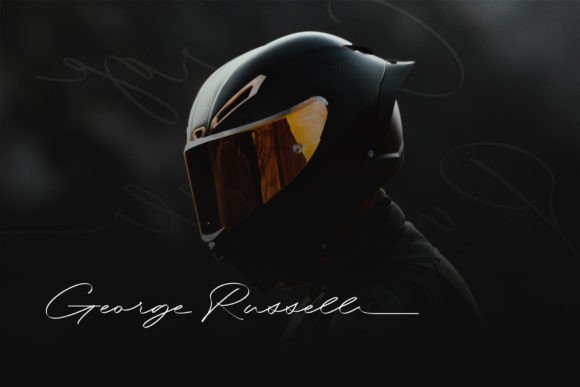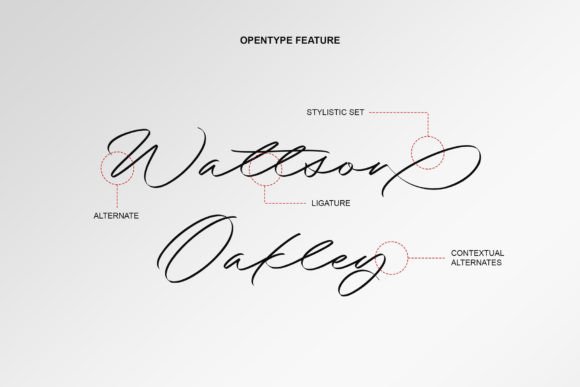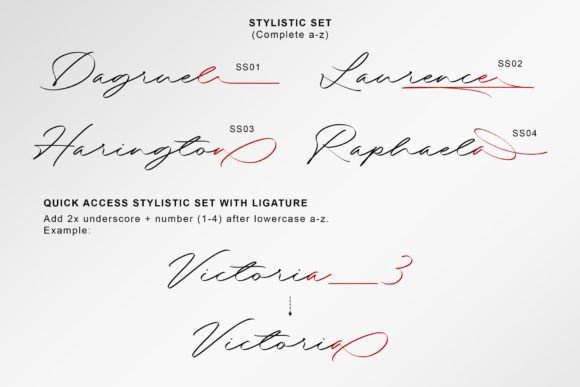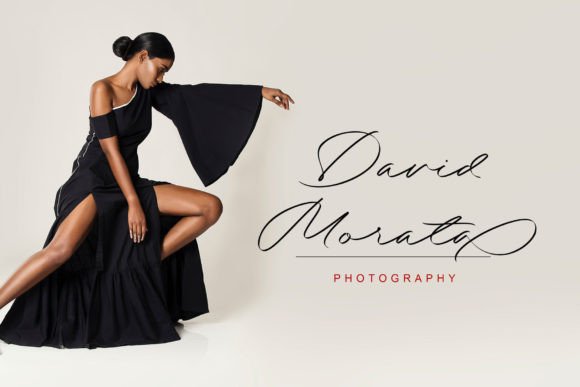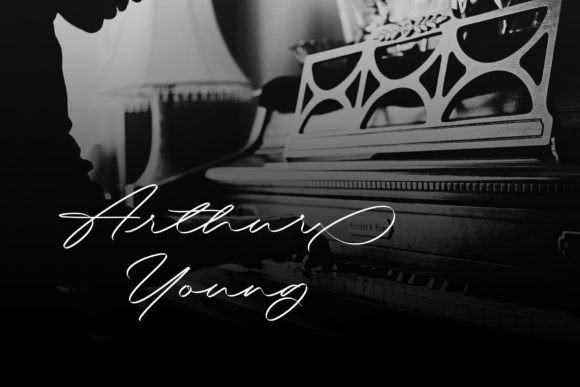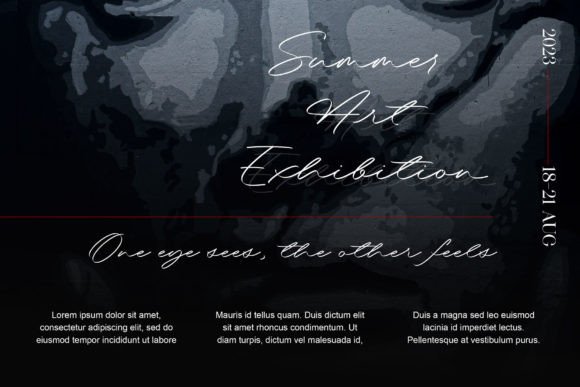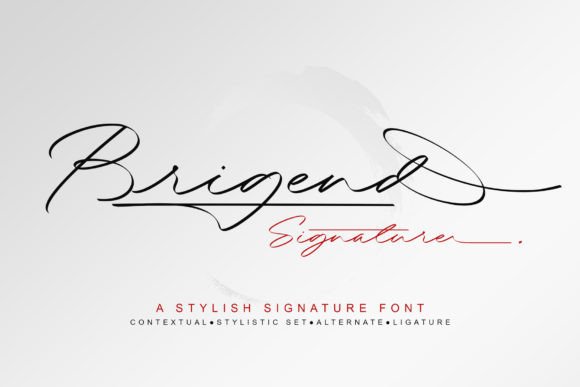
The Designer’s Delight: Unpacking the Brigend Font
I’ll never forget the time I was working on a branding project for a luxury wedding planner. My client wanted a sophisticated, elegant look that would make her clients swoon. As I scrolled through font after font, nothing seemed quite right. That was until I stumbled upon the Brigend Signature font. Its ravishing style and effortless swashes won me over, and I knew I had found the perfect fit. In this article, I’ll share my love for the Brigend Font, its features, and how to make the most of it in your designs.
So, what makes Brigend Signature so special? Let’s dive into the good stuff and a few quirks I’ve discovered.
- ✨ PUA Encoding: This font is PUA encoded, which means you can access all the glyphs and swashes with ease. No more tedious searching for the perfect flourish!
- ✅ Elegant Style: Brigend Signature exudes sophistication and luxury, making it perfect for high-end branding, weddings, and creative projects.
- 💫 Versatility: This font is incredibly versatile, working beautifully for both digital and print designs.
While Brigend Signature is an amazing font, there are a few things to keep in mind:
- ⚠️ Glyph Overload: With so many glyphs and swashes available, it can be overwhelming to navigate. Take some time to explore the font and create a cheat sheet for your favorite elements.
- 🤔 Pairing Challenges: As with any script font, pairing Brigend Signature with other fonts can be tricky. Experiment with different combinations to find the perfect match.
A Practical Guide: Using Brigend Signature in Your Designs
Now that you’re excited about Brigend Signature, let’s explore how to use it in some popular design platforms.
A Brief Backstory: The Inspiration Behind Brigend
Rumor has it that Brigend Signature was inspired by the rolling hills and lush landscapes of the Welsh countryside. Its creator, a talented type designer, sought to capture the essence of the region’s rugged beauty in a font that exudes elegance and refinement. Whether or not that’s true, one thing is certain: Brigend Signature is a masterpiece.